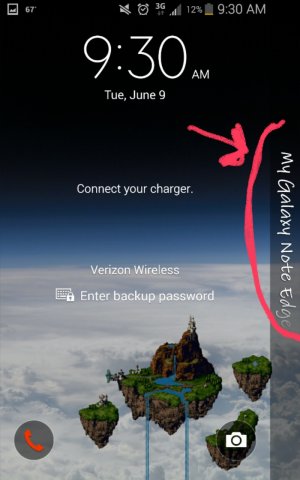
Change font for sidebar
Is there a way, preferably without rooting the device, to change the font of the sidebar message? I changed the text itself, but I despise the font they use, it consistently reminds me of Comic Sans which is deplorable.
I'm obviously referring to the atrociously drawn circle and arrow.
Is there a way, preferably without rooting the device, to change the font of the sidebar message? I changed the text itself, but I despise the font they use, it consistently reminds me of Comic Sans which is deplorable.
I'm obviously referring to the atrociously drawn circle and arrow.
Been trying to figure this out since day one.